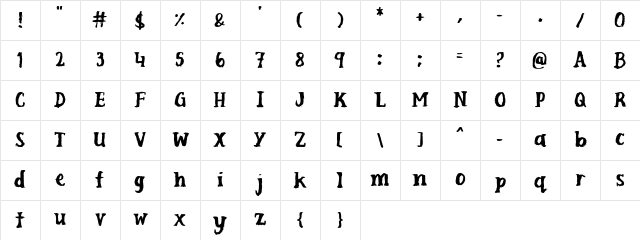
Scuffle Regular Free Font
Scuffle Regular
Foundry: Rosie Tea
Designer: Rosie Tea
Design Context for Scuffle
Scuffle is a composed and adaptable typeface that performs quietly and consistently across a wide range of design contexts.